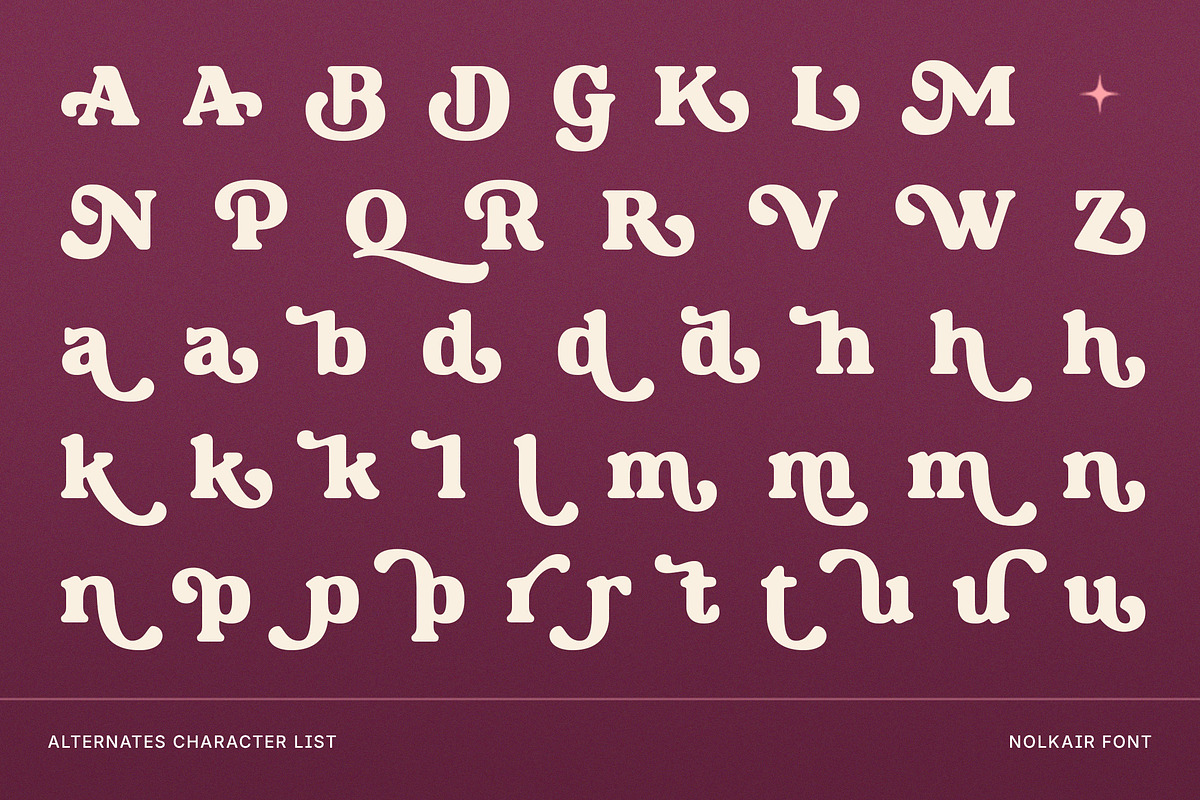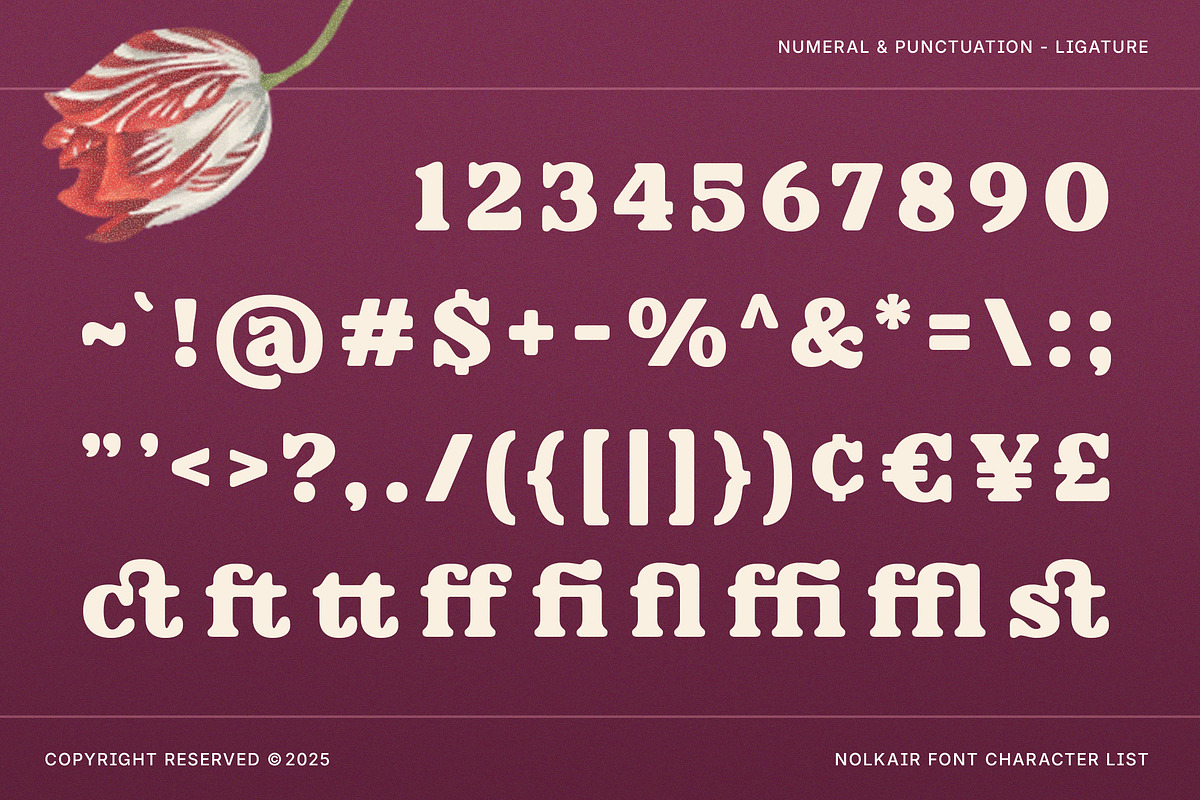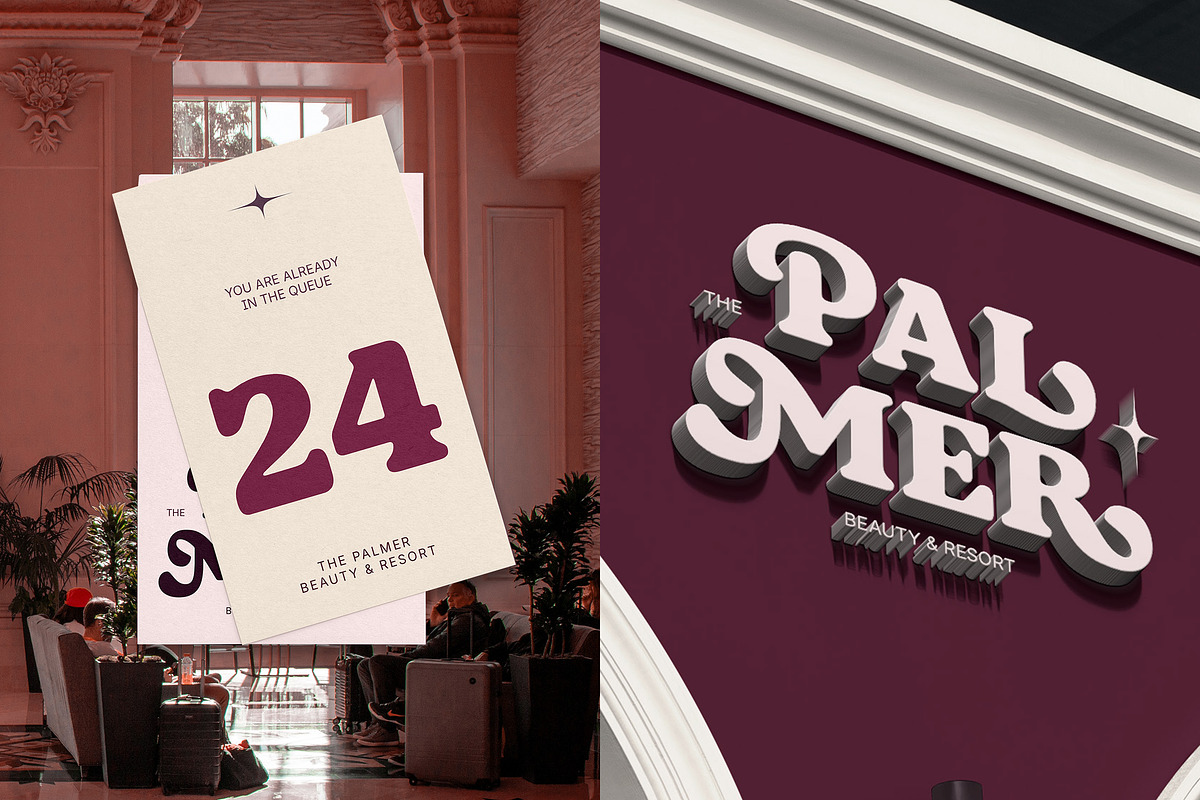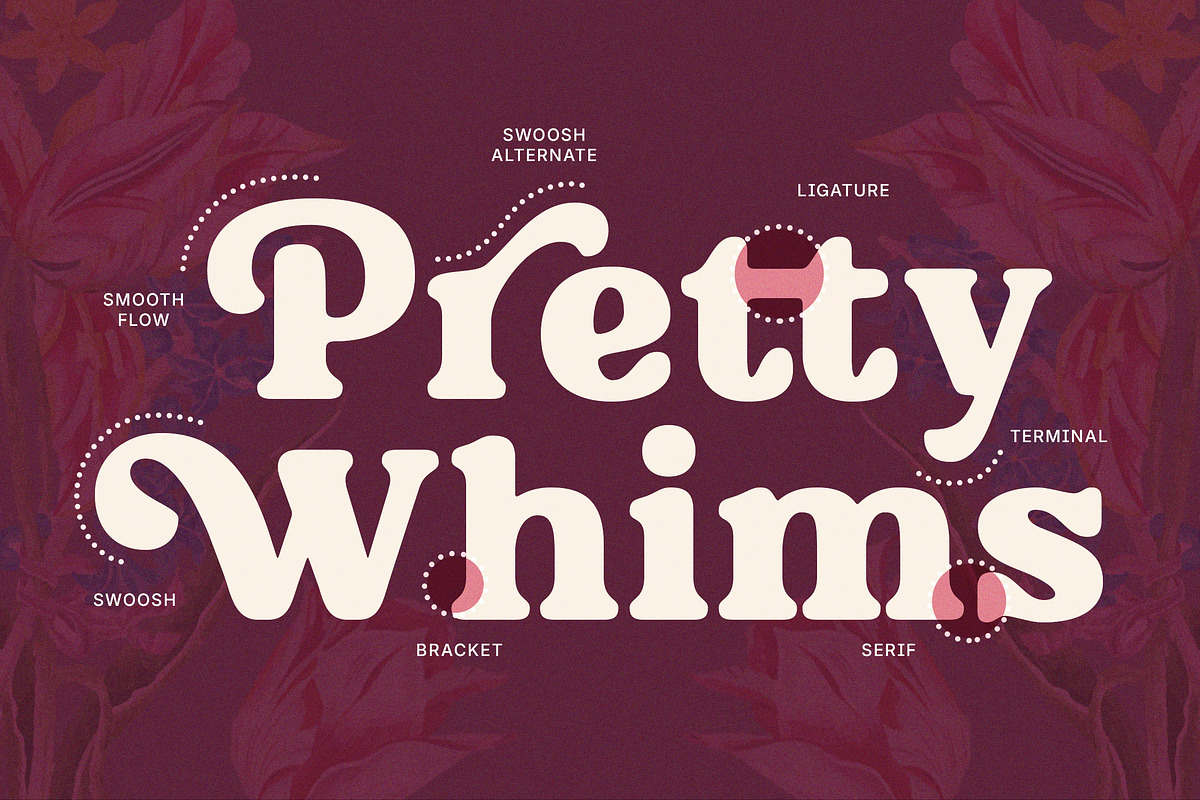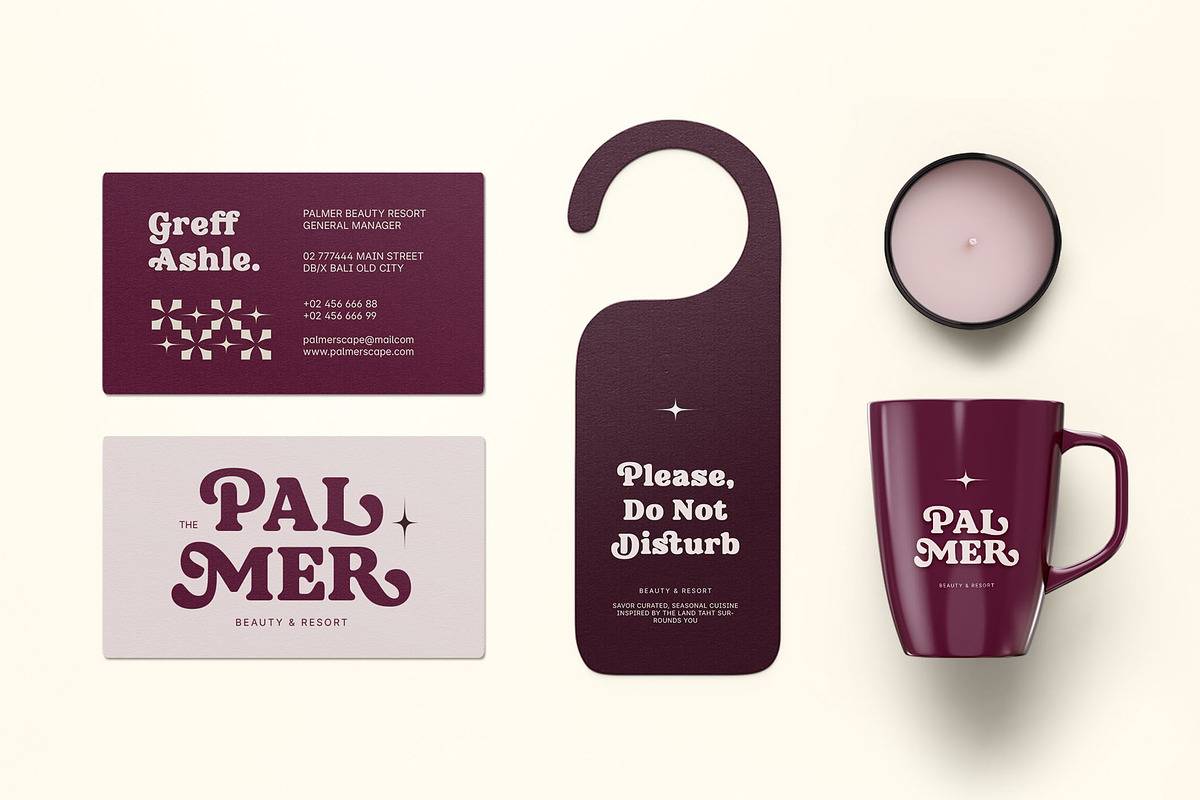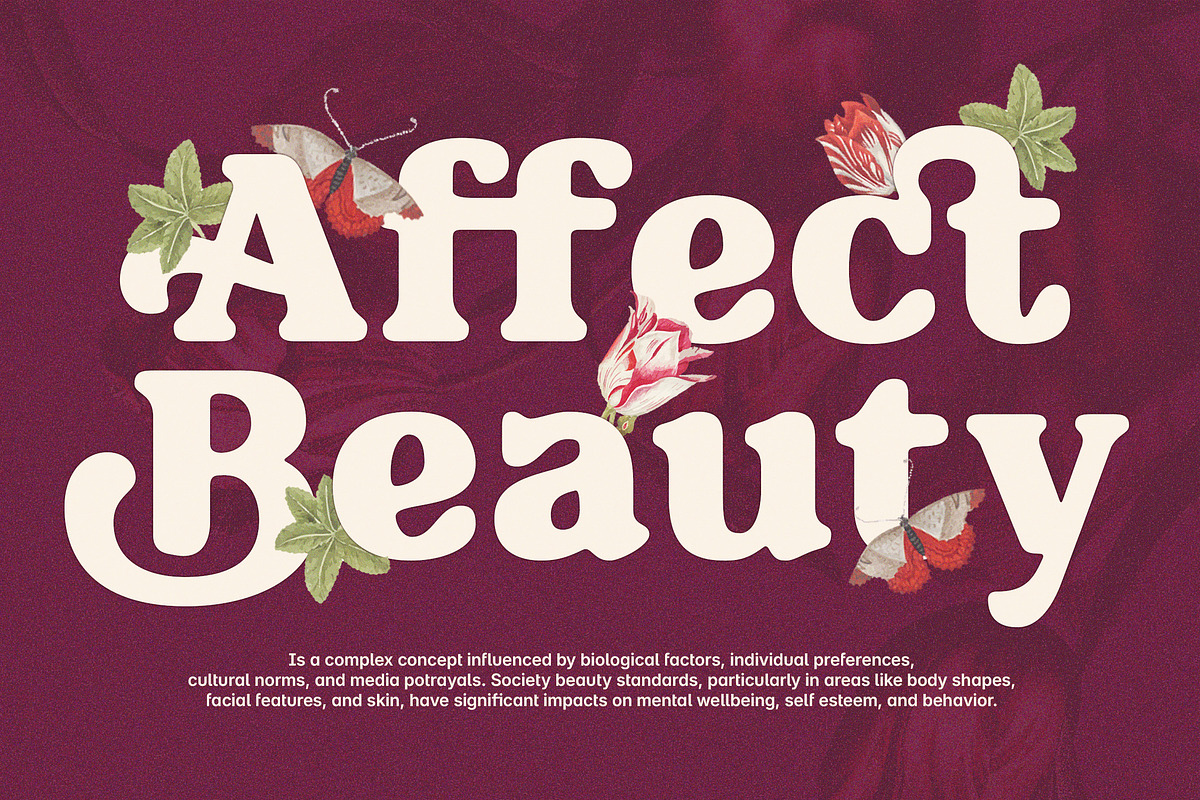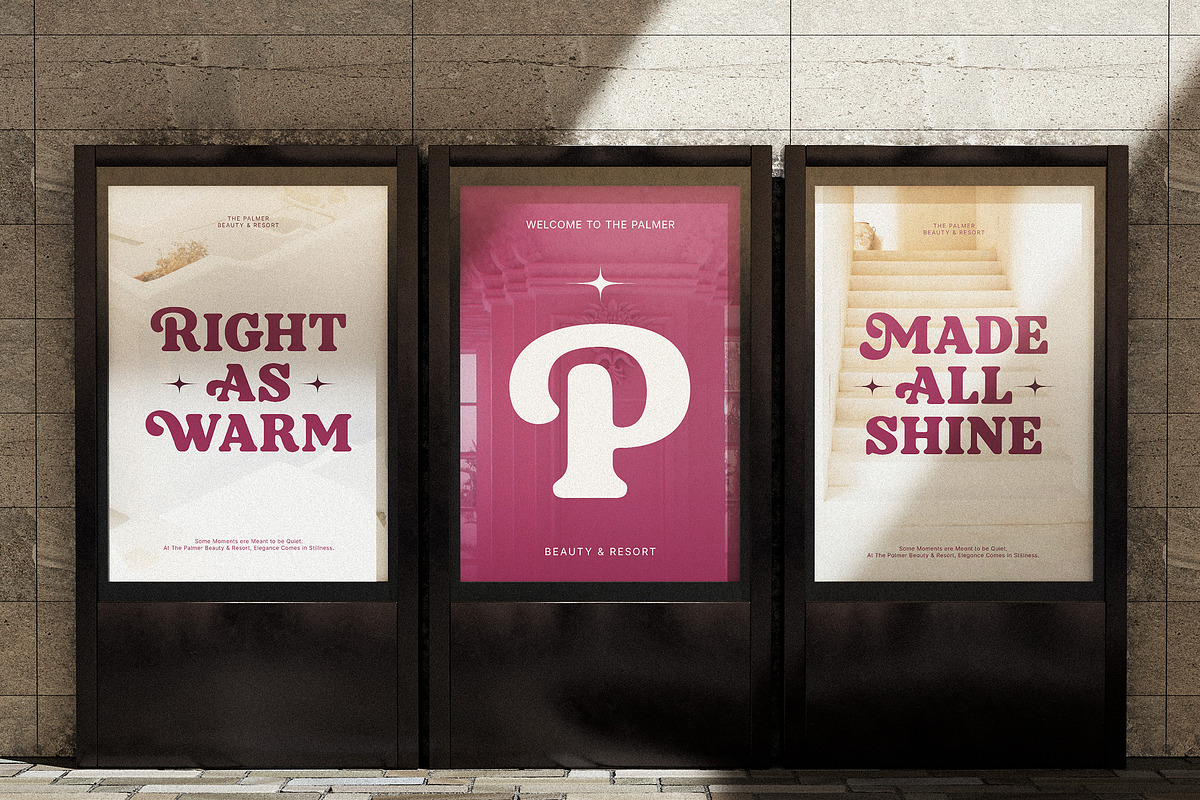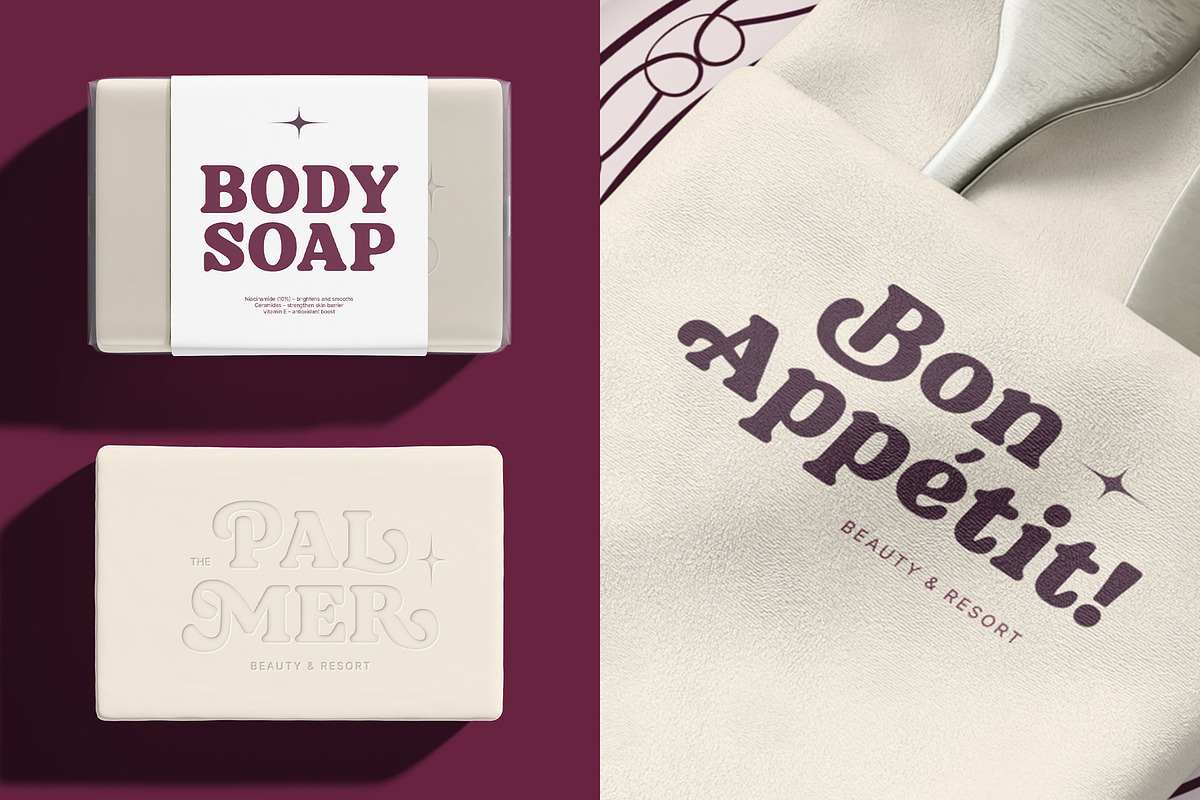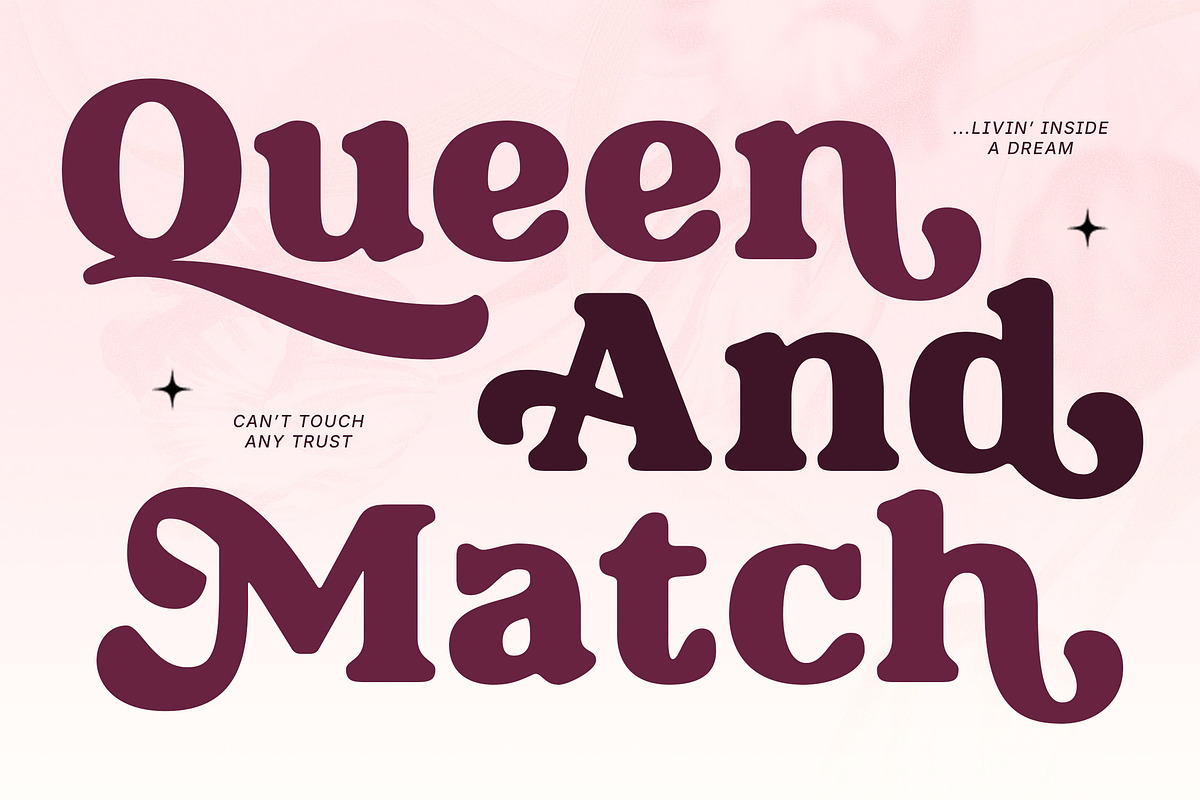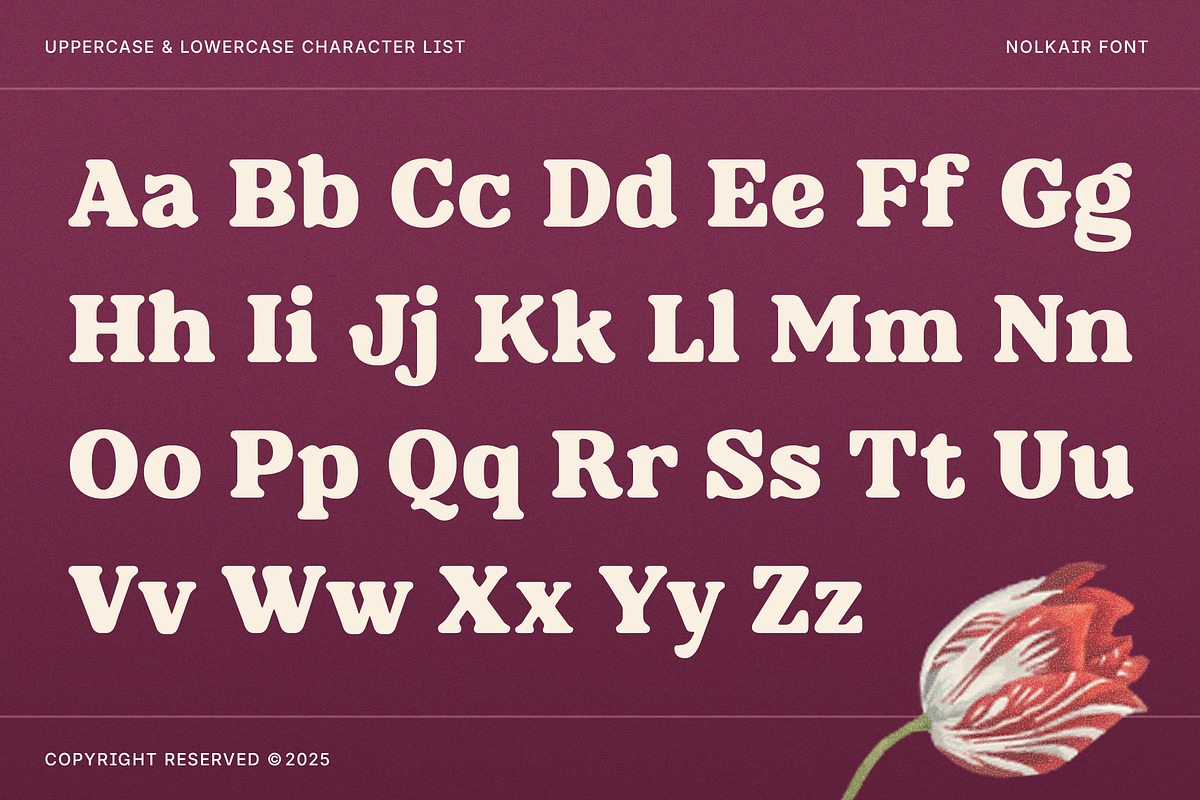
Nolkair - Bold Swashes Retro Serif
Nolkair - Bold Modern Swashes Retro Serif font - Summer Vintage Logo Display Font
Nolkair is a Bold Modern Swashes Retro Serif Font that perfectly captures the groovy and playful spirit of the 80s. This distinctive display typeface is chunky and rounded, featuring elegant swashes and a memorable vintage look. This Font is ideal for vintage logo designs, stylish branding for fashion labels, compelling poster design across the summer, fashion, cafe, resort industries and any projects that require retro and bold design. By blending a classic serif structure with a modern, bold personality, Nolkair ensures your project has both sophisticated charm and undeniable visual appeal.